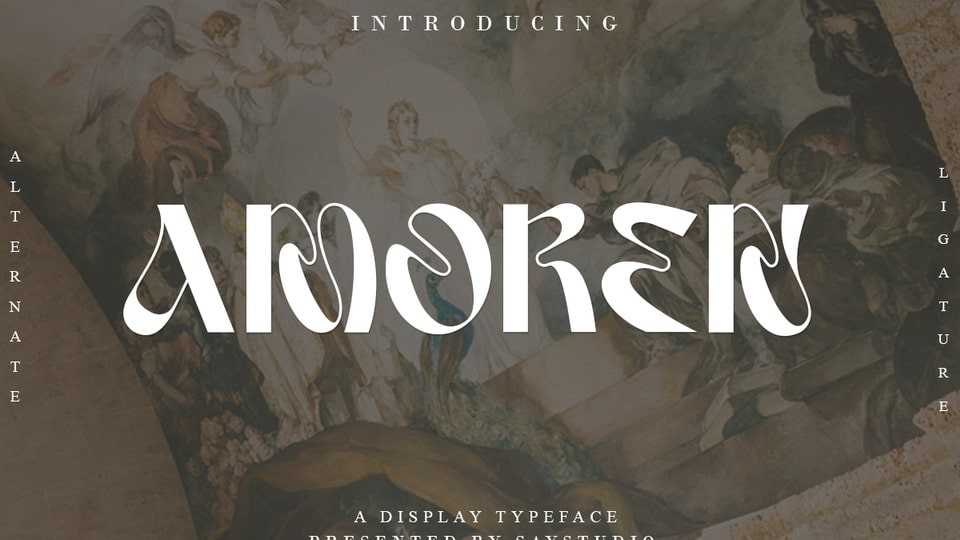
Download Amoren font, a display typeface with a psychedelic look and unique curves to bring a pleasant visual moment to the viewer. This font will add a fresh, fun feel to your designs.
Designer: Saystudio